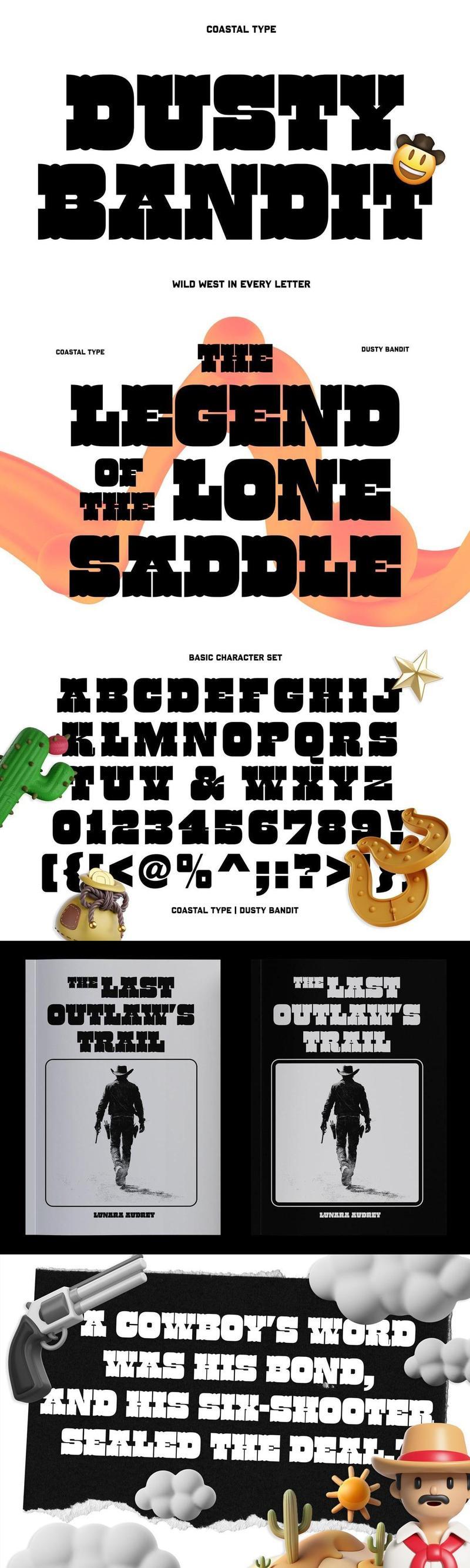
Saddle up and ride into the heart of the Old West with **Dusty Bandit**, a bold and rugged typeface that captures the untamed spirit of frontier life. Inspired by the iconic lettering of saloons, wanted posters, and dusty trail signs, this font brings vintage grit and rustic charm to any design.
With sharp serifs and weathered edges, Dusty Bandit evokes the feel of aged wood, worn leather, and windswept plains. Its perfect for branding, posters, logos, or any project that needs a dose of Wild West authenticity. Whether you’re crafting a whiskey label, a rodeo flyer, or a modern take on Western design, Dusty Bandit delivers grit and style in equal measure.
* Bold, impactful design with rustic texture
* Perfect for vintage, Western, or Americana themes
* Versatile for headlines, logos, and branding
* Uppercase & Lowercase
* Numerals & Punctuation
Let Dusty Bandit be the sheriff of your design toolkitbringing justice to your creative projects, one letter at a time.